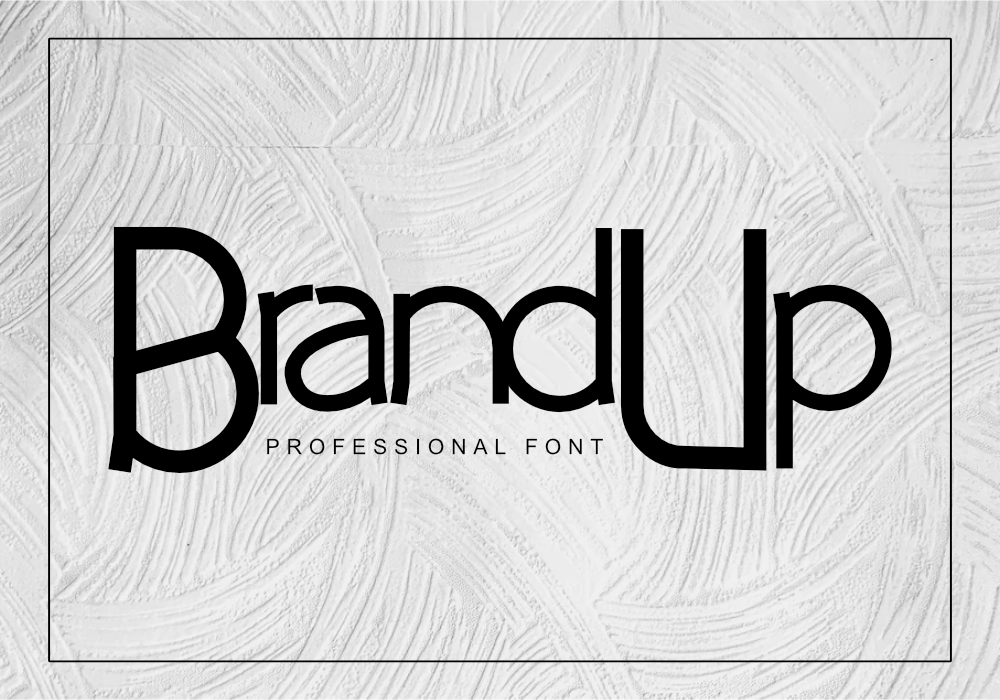
BrandUp Font by GraphicsFamily BrandUp is a simple, clean and neat sans serif font family crafted by GraphicsFamily. No matter the topic, this font will be an incredibly asset to your fonts’ library, as it has the potential to elevate any creation. It comes with these versions: – Light; – Thin; – Regular; – Bold;